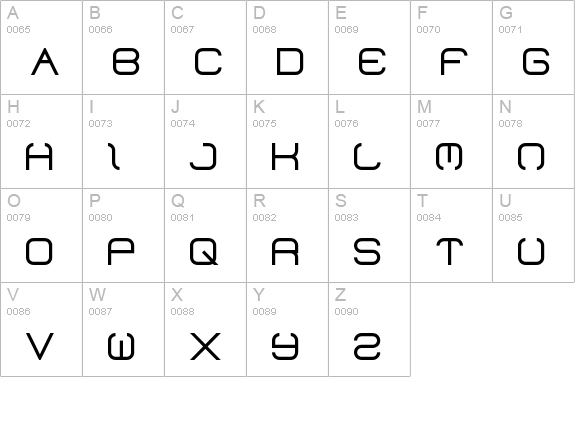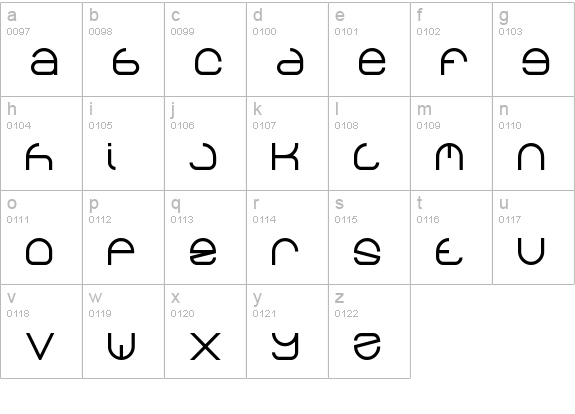
helen Font Details
Helen Font is a stunning typeface that combines elegance and sophistication with a touch of modernity. It is a versatile font that can be used for a wide range of design projects, from logos and branding to invitations and headlines. With its clean lines and sharp edges, Helen Font exudes a sense of professionalism and refinement. Its unique character shapes make it stand out from the crowd, while still maintaining a sense of legibility and readability. What makes Helen Font even more impressive is that it is freely available to download at FontsMarket.com. This means that designers and enthusiasts alike can easily access this beautiful typeface without having to worry about any costs or restrictions. Whether you are a professional designer looking for a new addition to your font library or a DIY enthusiast working on a personal project, Helen Font is the perfect choice. Its versatility, elegance, and availability make it a valuable asset for any creative endeavor. So go ahead, download Helen Font today and discover the endless possibilities it offers for your designs.